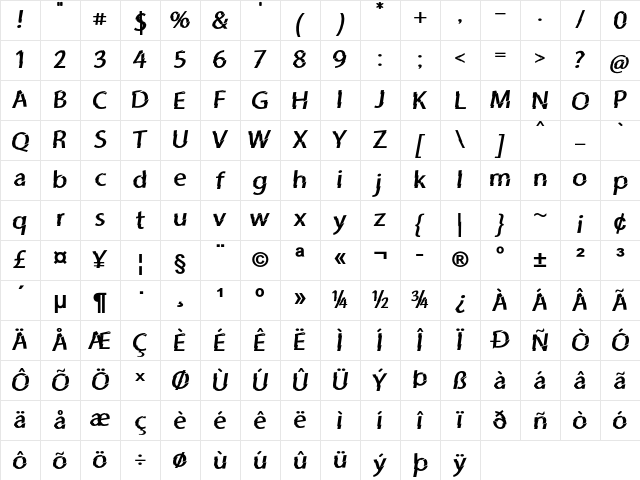
Category 5 Bold Free Font
Complete Category 5 Bold glyph index. Displaying only characters natively supported by Category 5 Bold font.
Design Context for Category 5
Category 5 is a composed and adaptable typeface that performs quietly and consistently across a wide range of design contexts. Its bold stroke weight gives it real presence on the page.